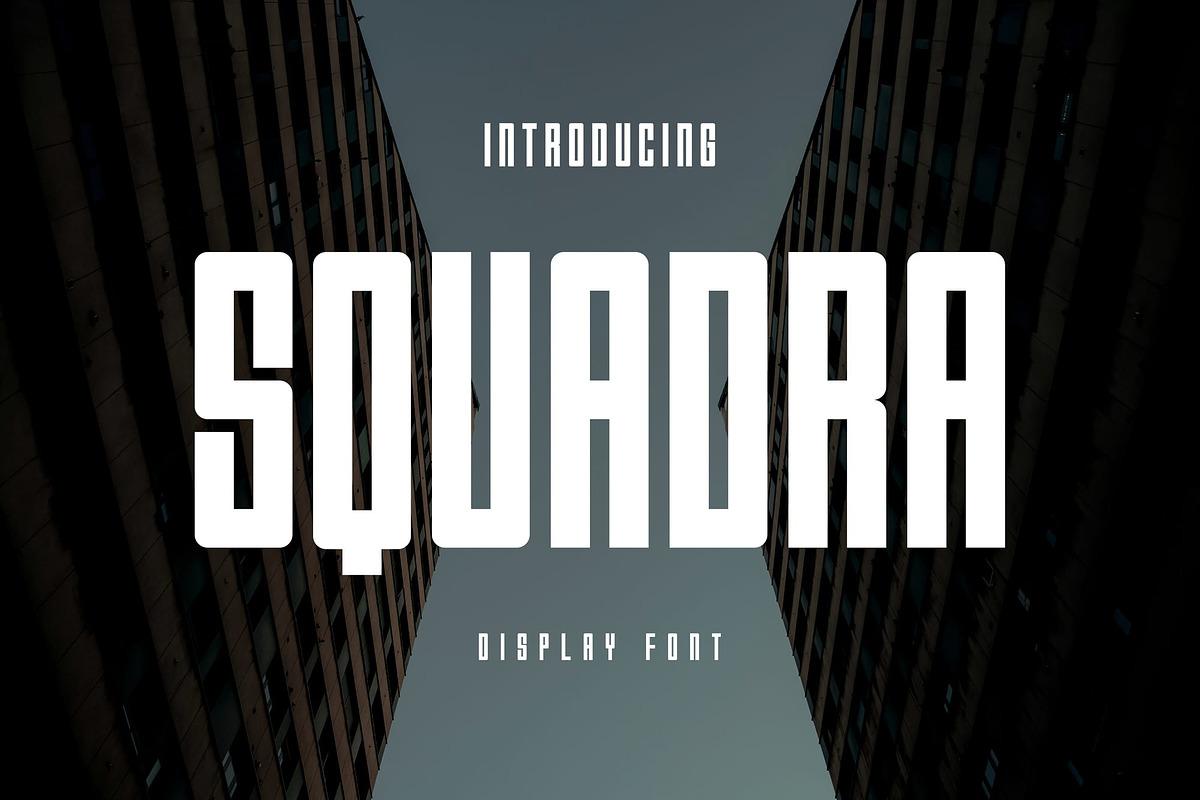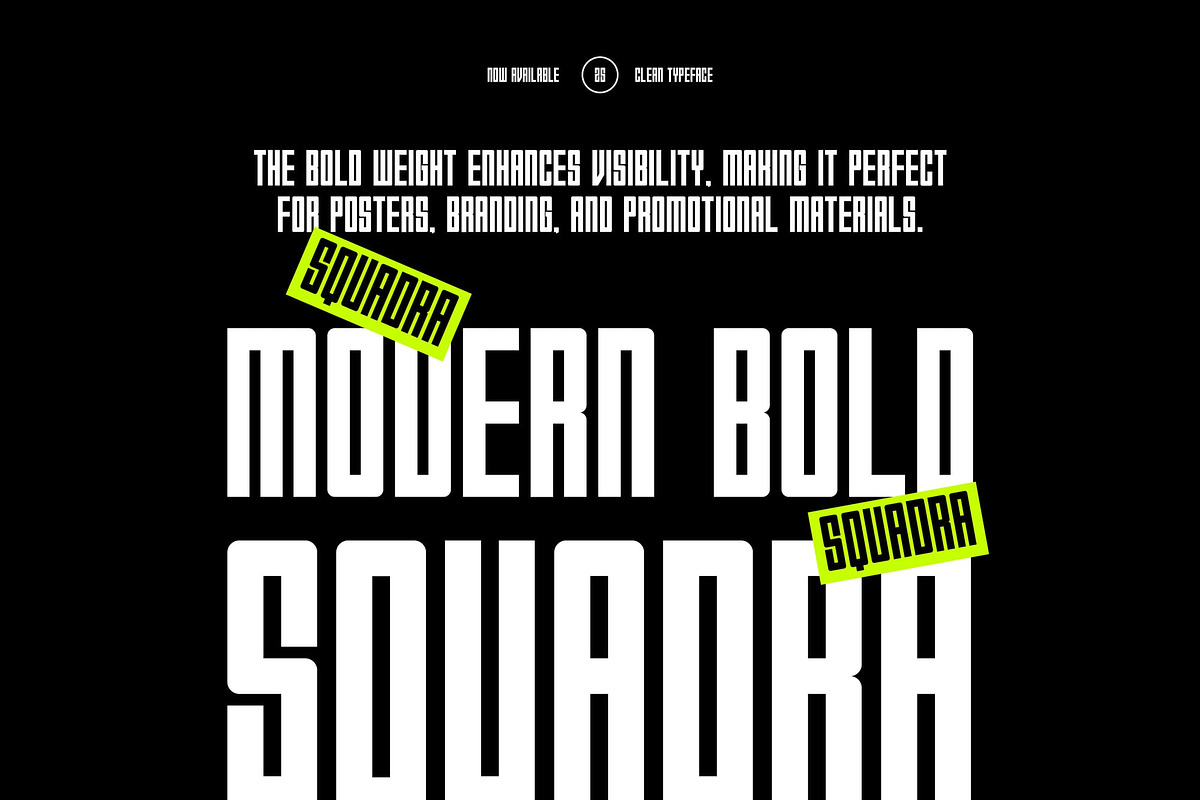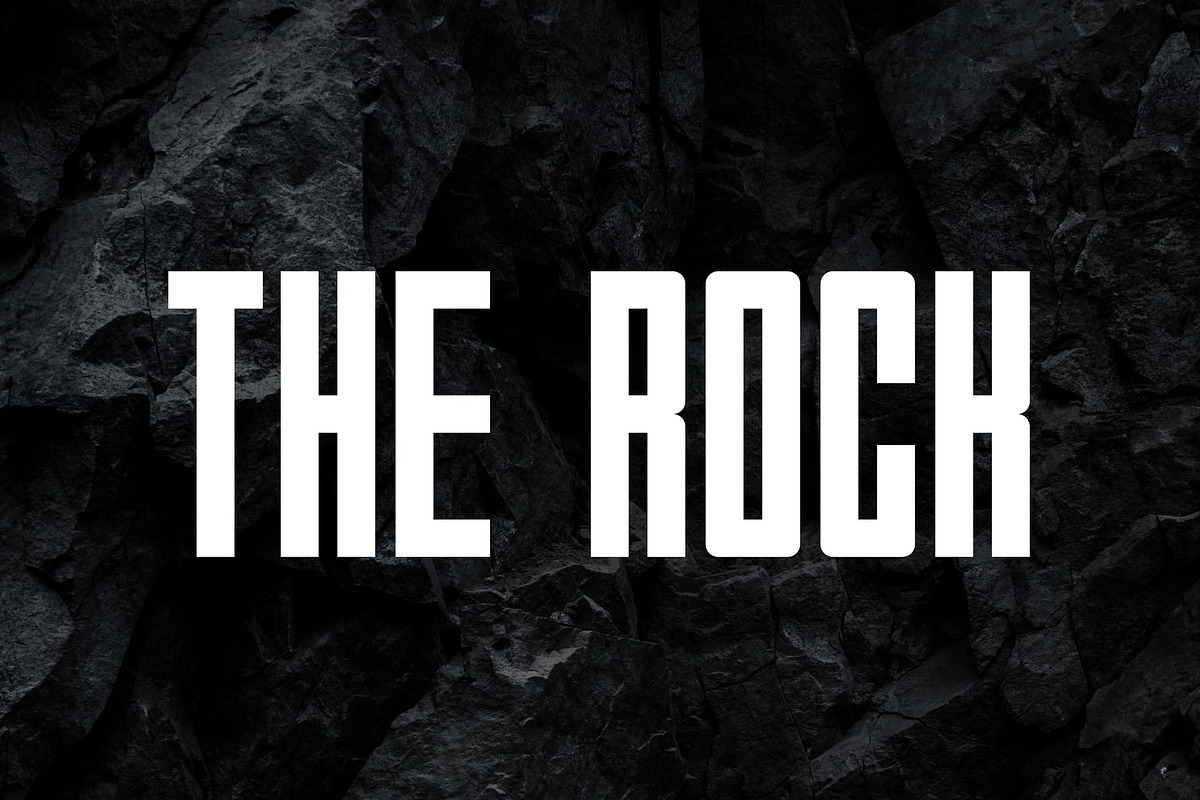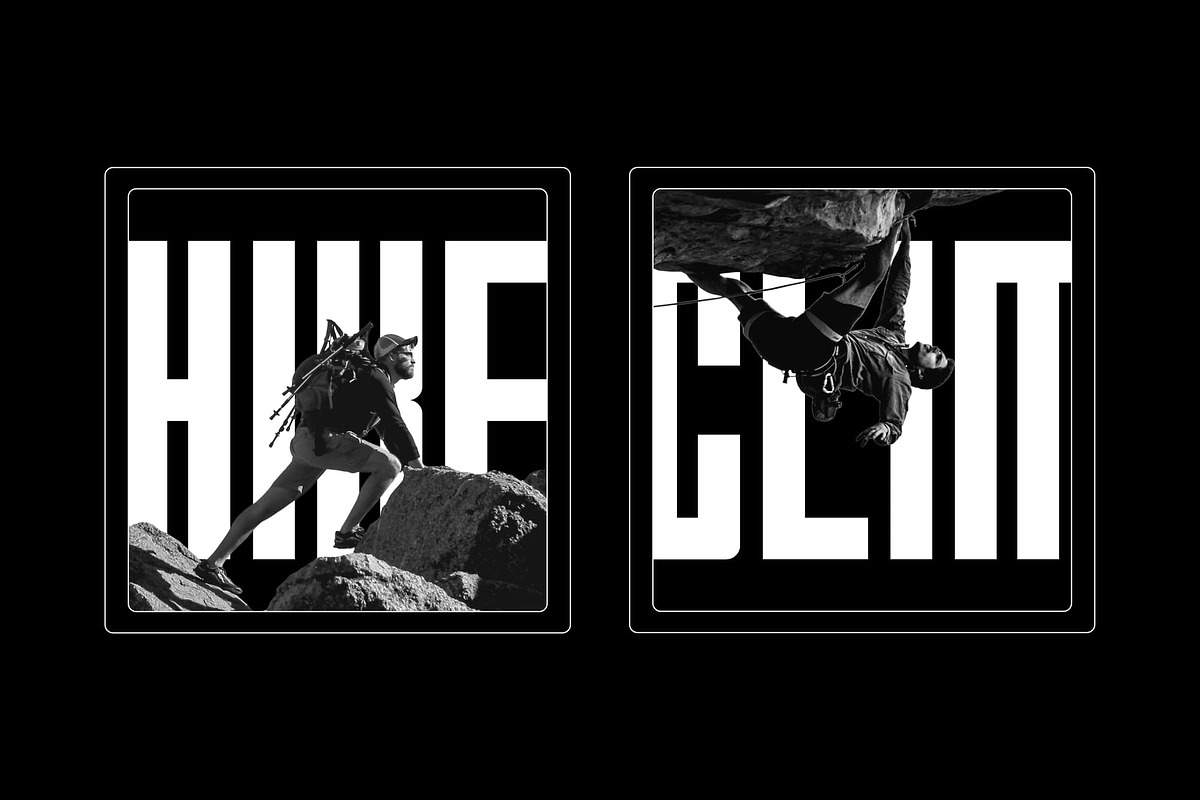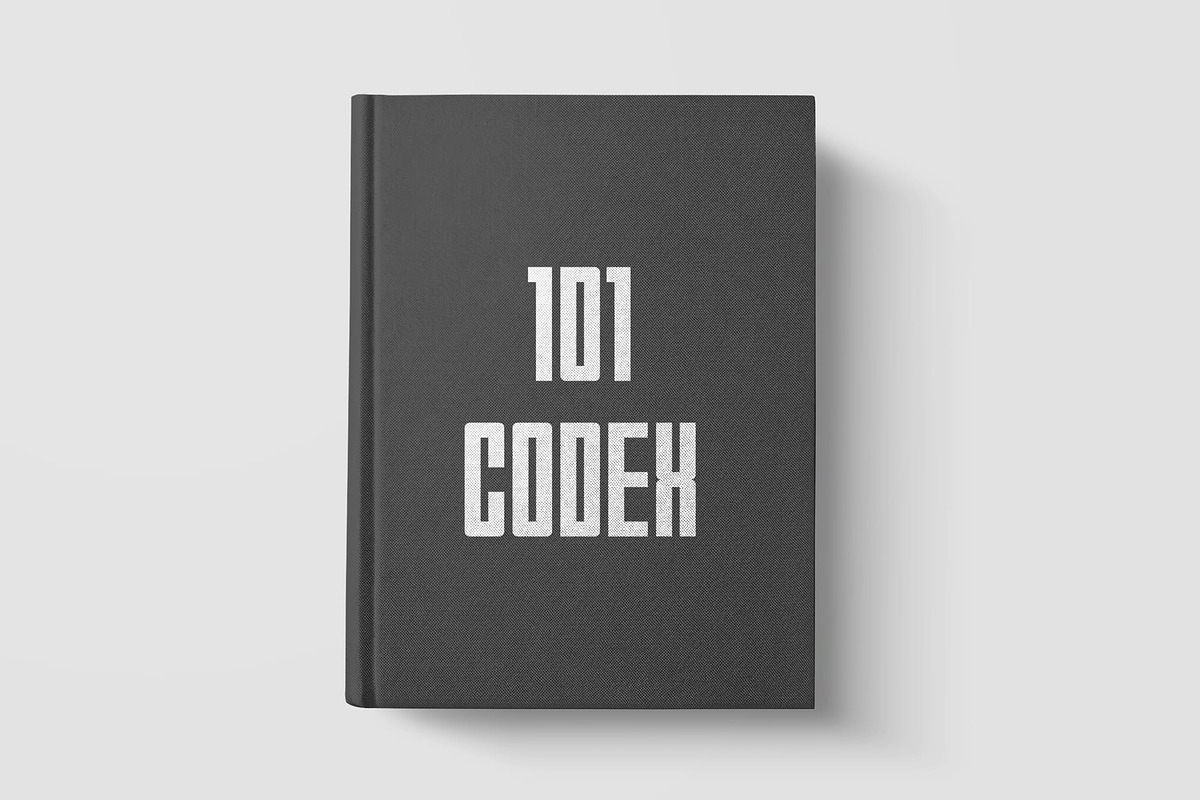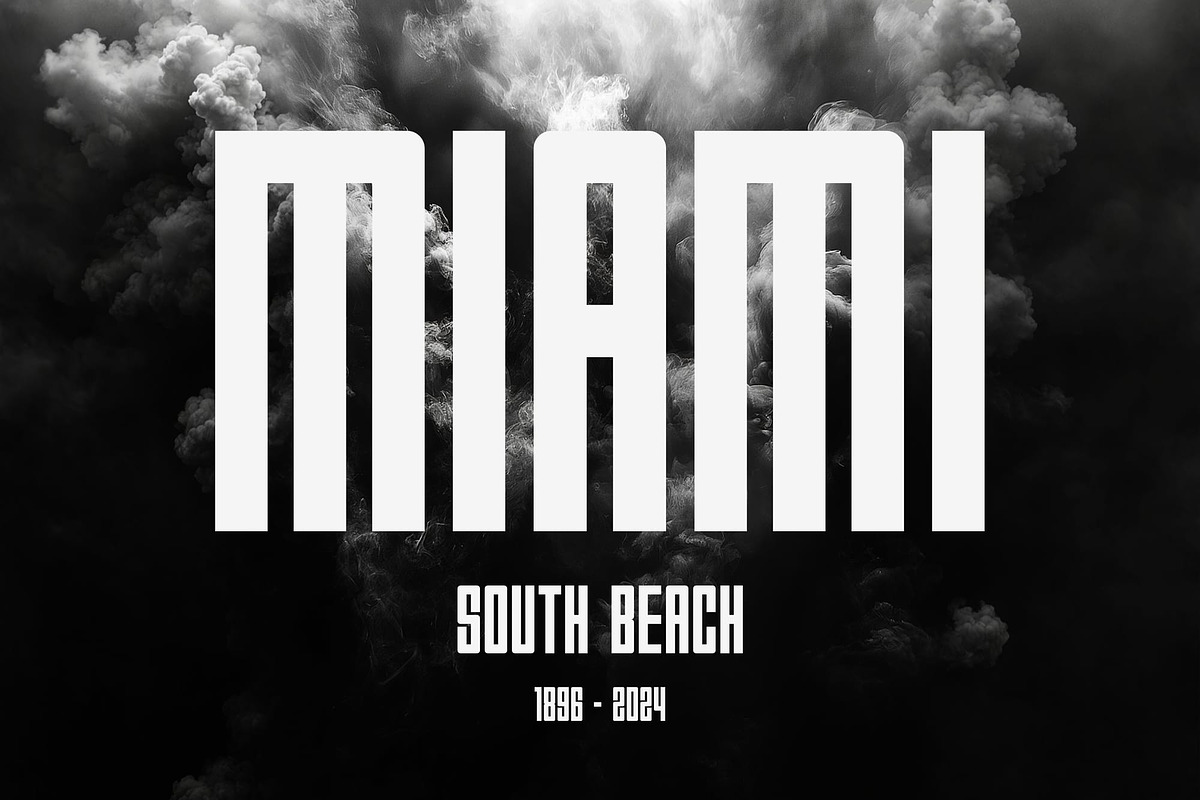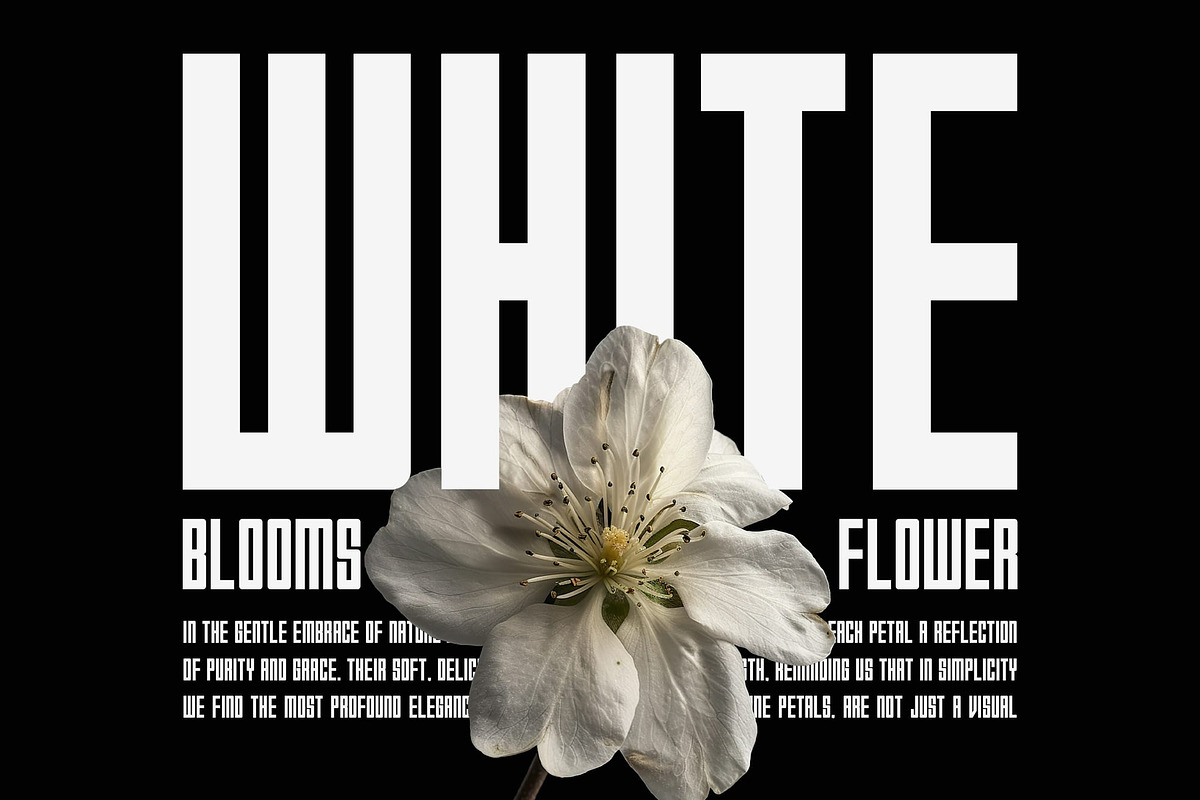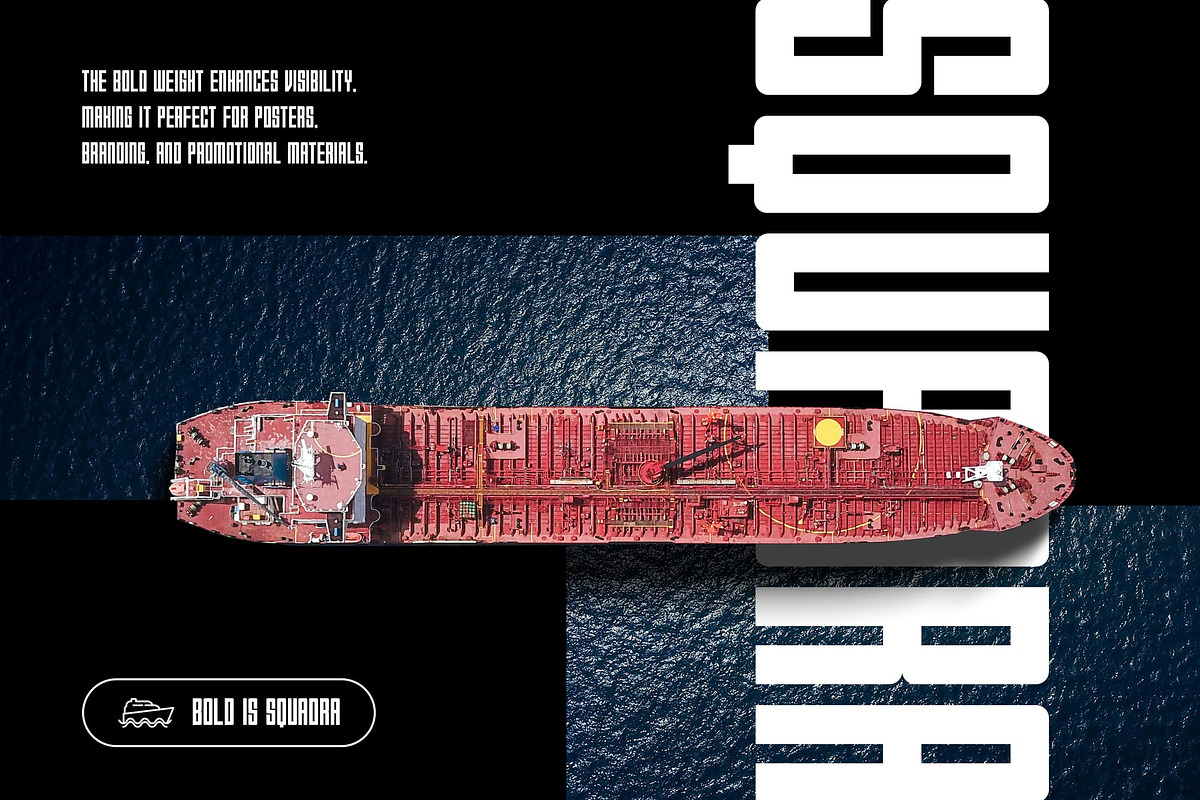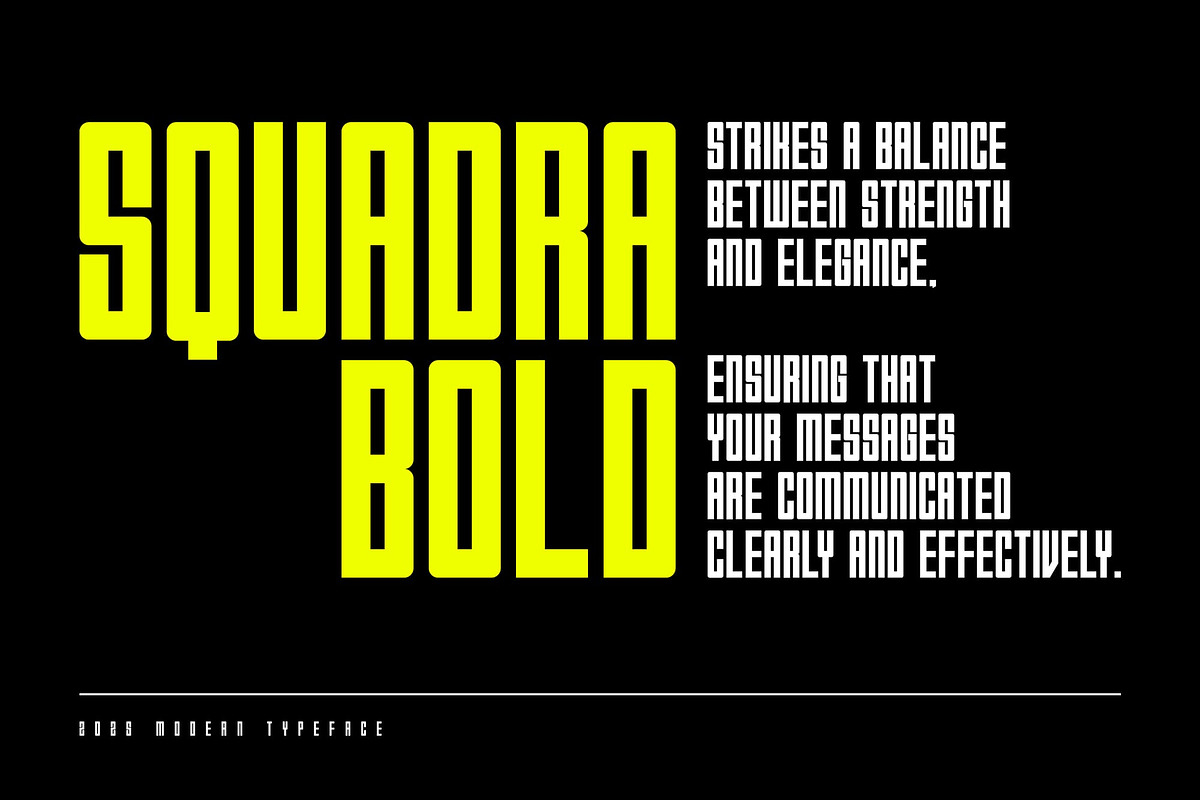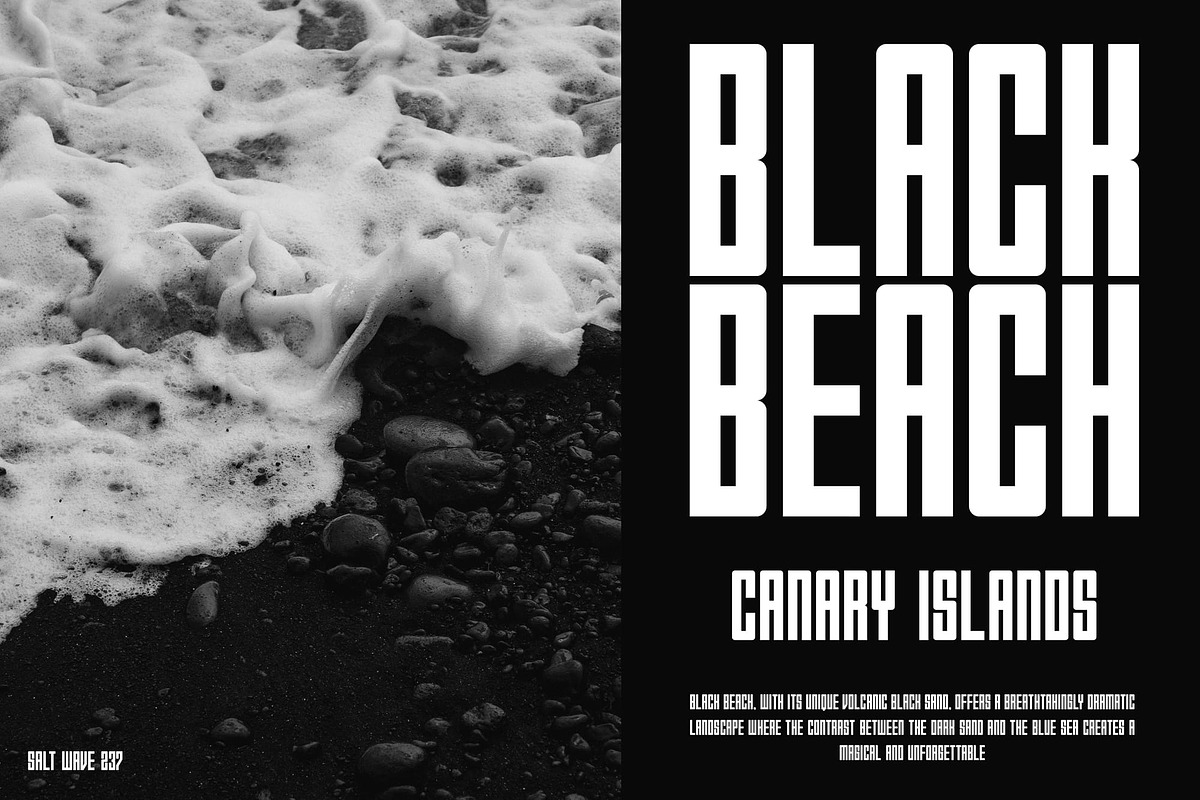
Squadra
Introducing Squadra—the bold display font that takes your designs to new heights.
With its striking uppercase letters and tall proportions, Squadra is perfect for making a statement in any project.
Whether you're crafting eye-catching posters, dynamic logos, or stylish social media graphics, this font adds a modern flair that captures attention. Elevate your creative work with Squadra, where style meets functionality, and let your designs stand out like never before!